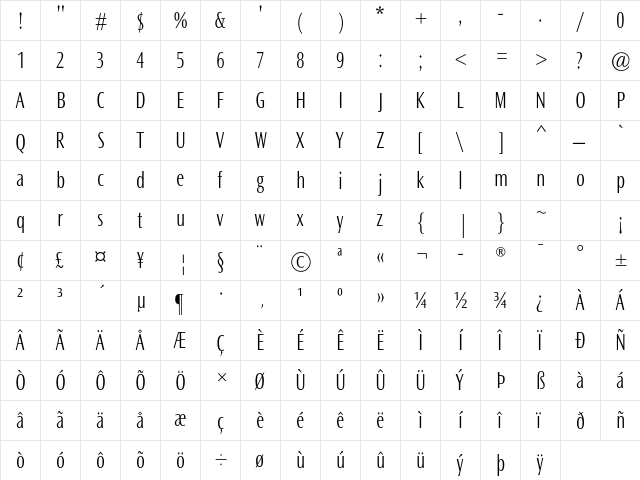
Ocean Sans MT Std Light Cond
Design Context for Ocean Sans MT Std Typeface
Ocean Sans MT Std is a composed and adaptable typeface that performs quietly and consistently across a wide range of design contexts. The delicate stroke weight brings airiness and refinement to layouts. The condensed width makes it efficient for tight spaces without sacrificing legibility.